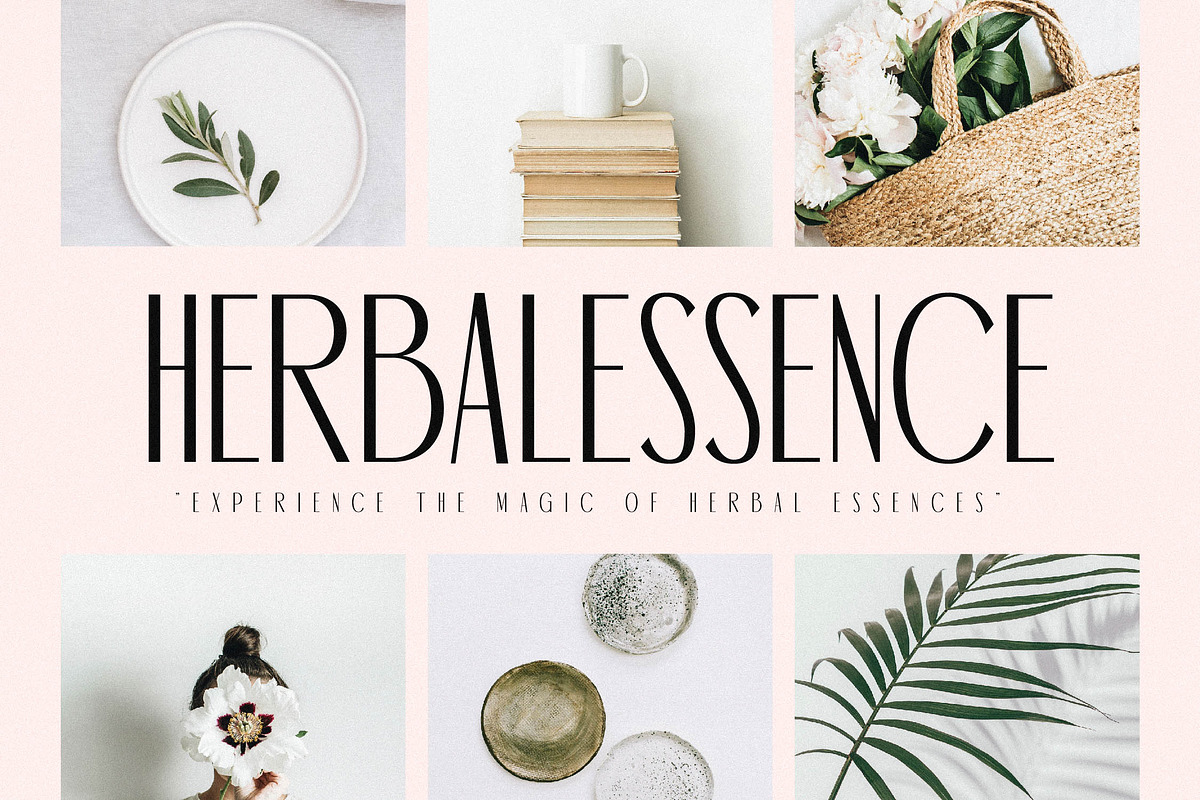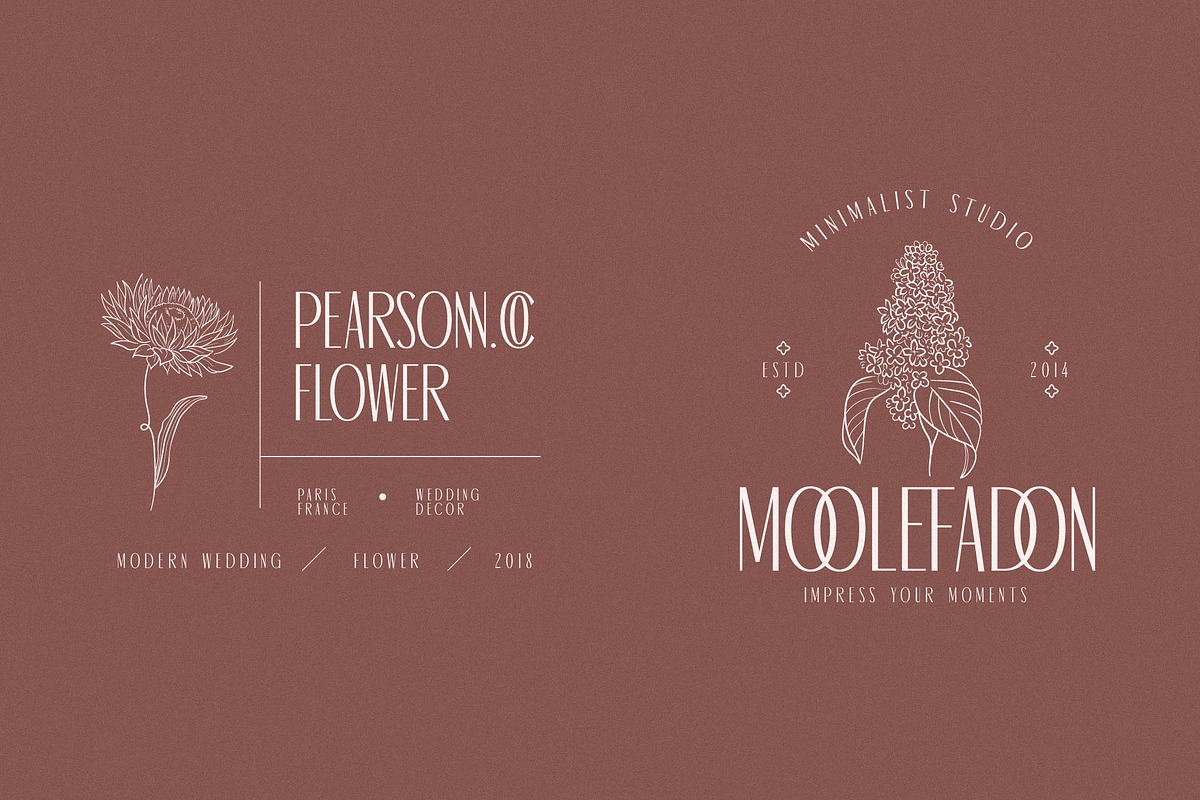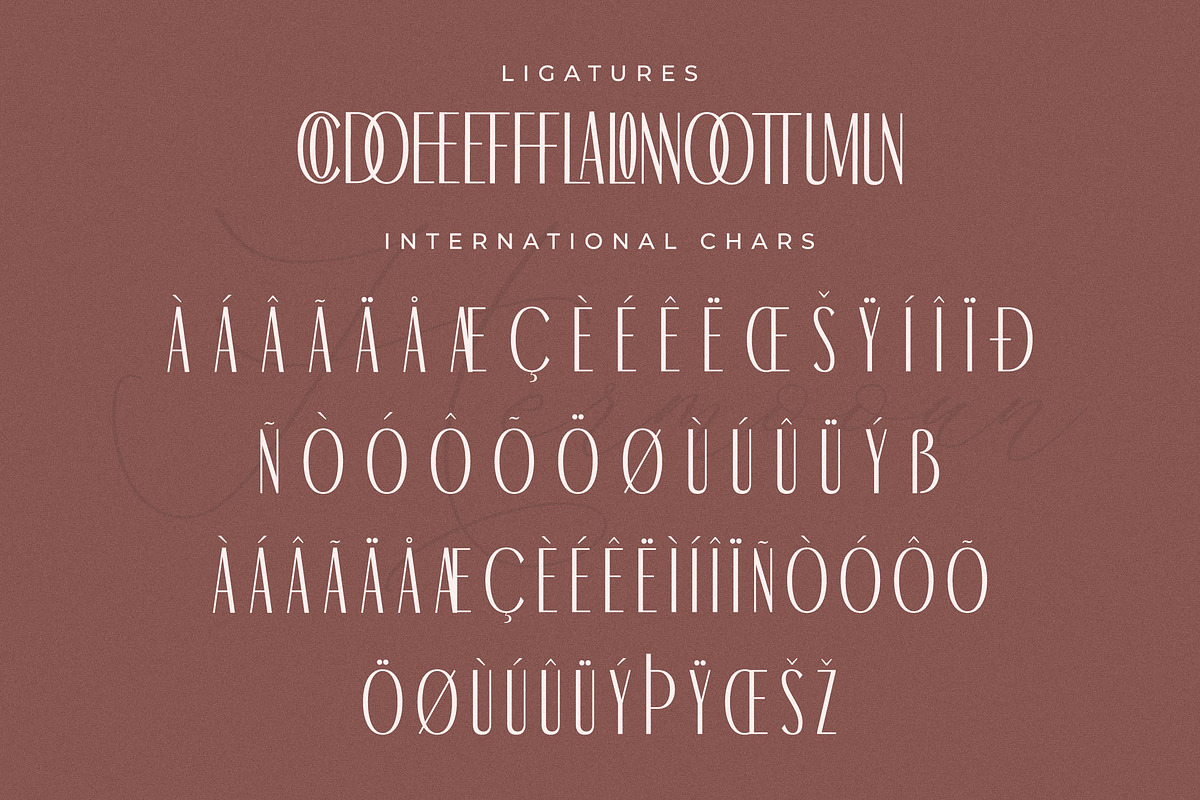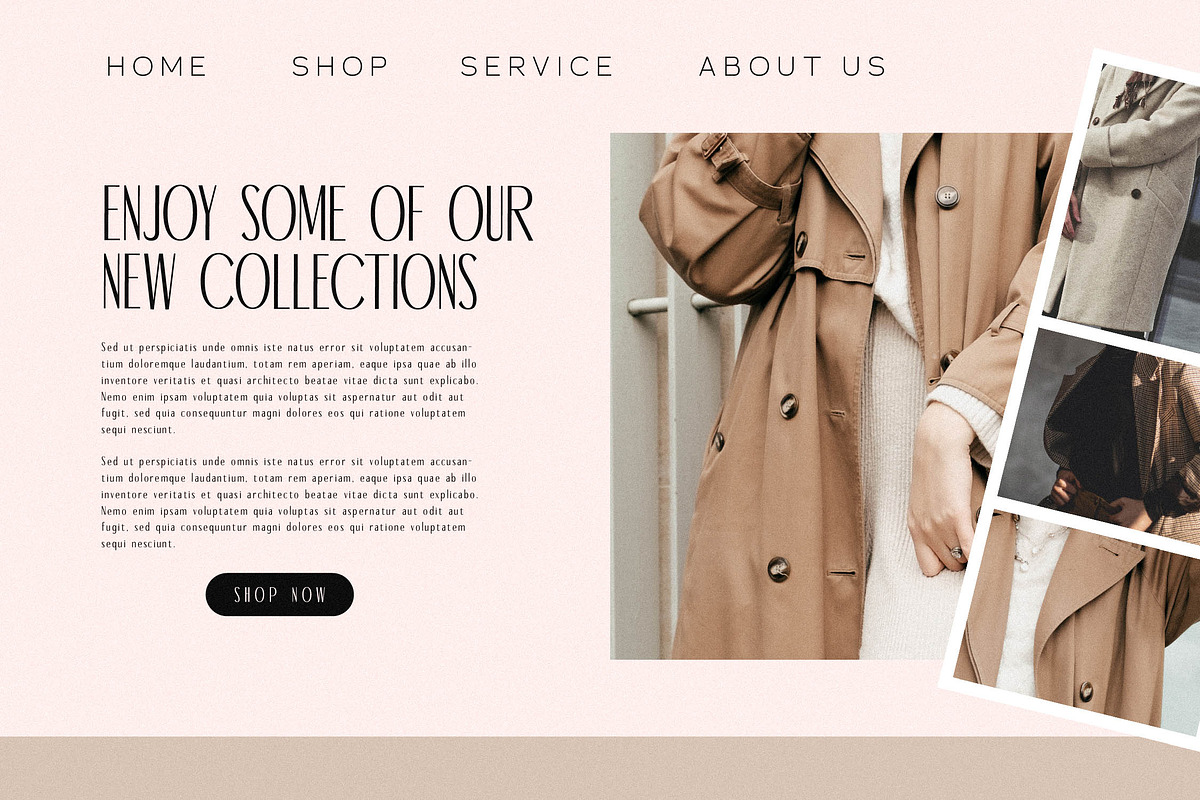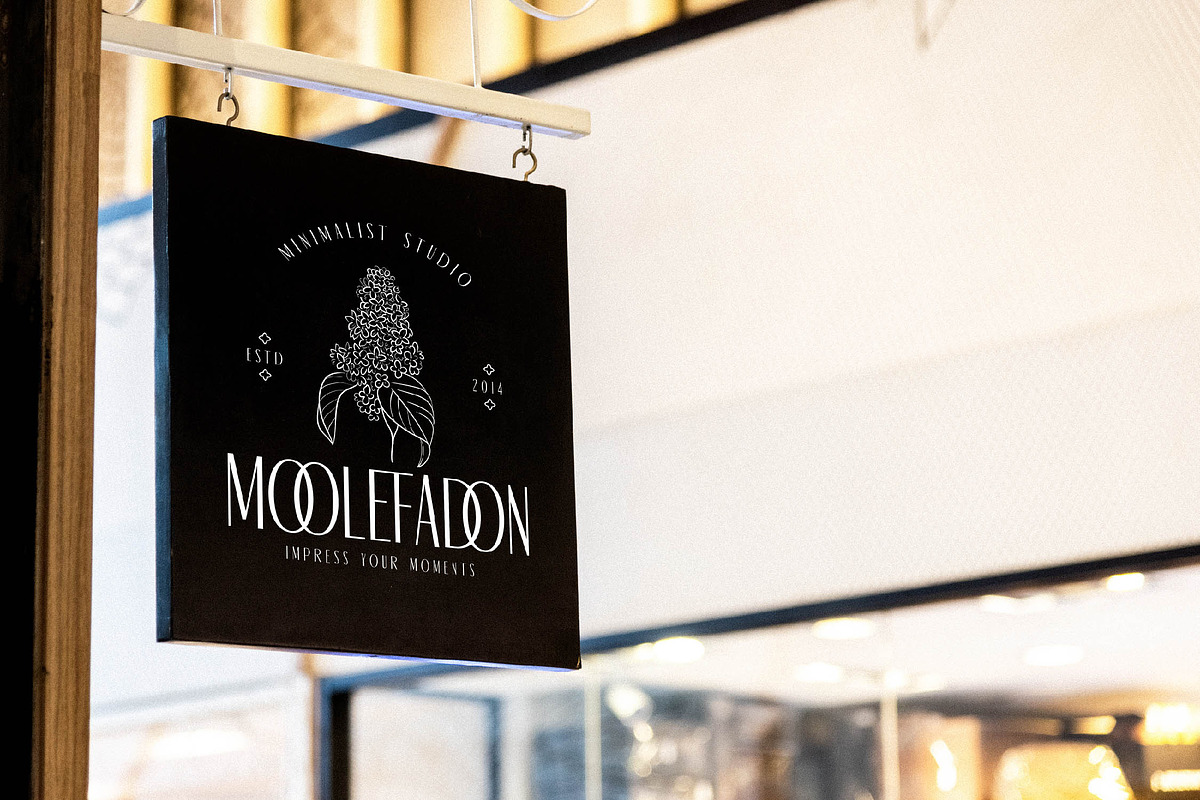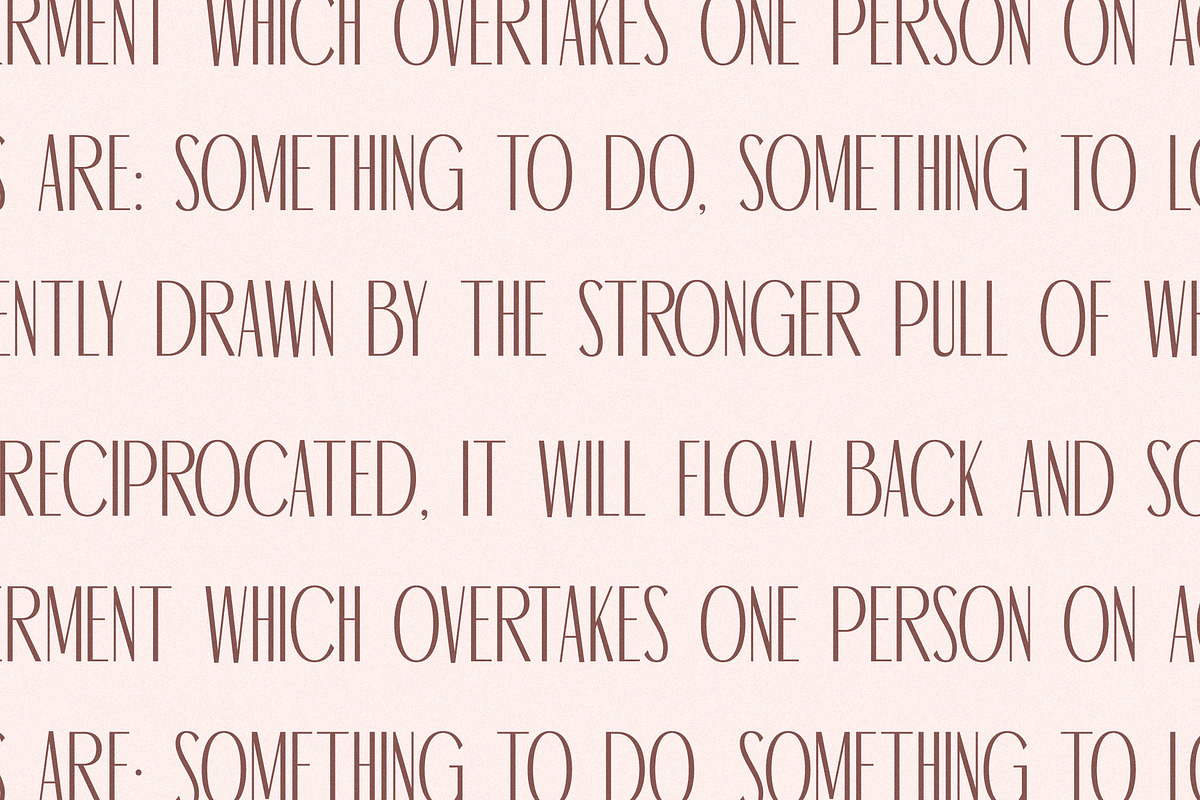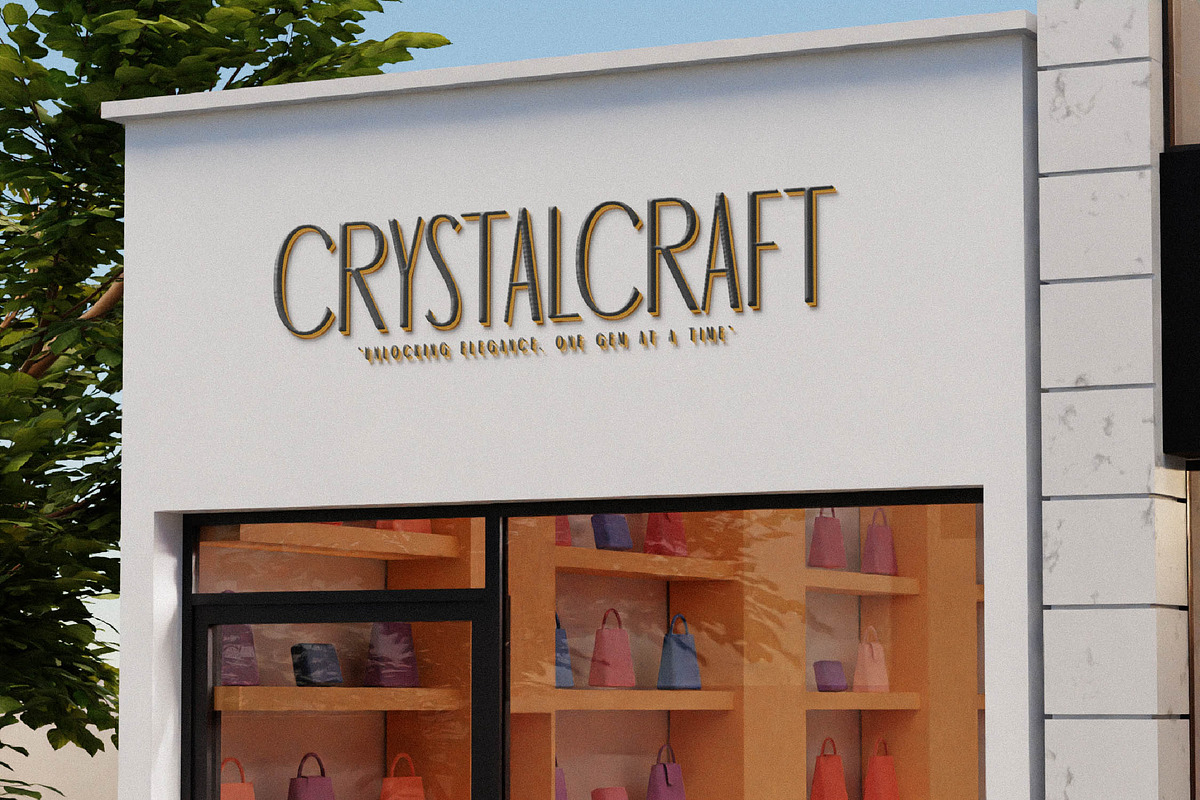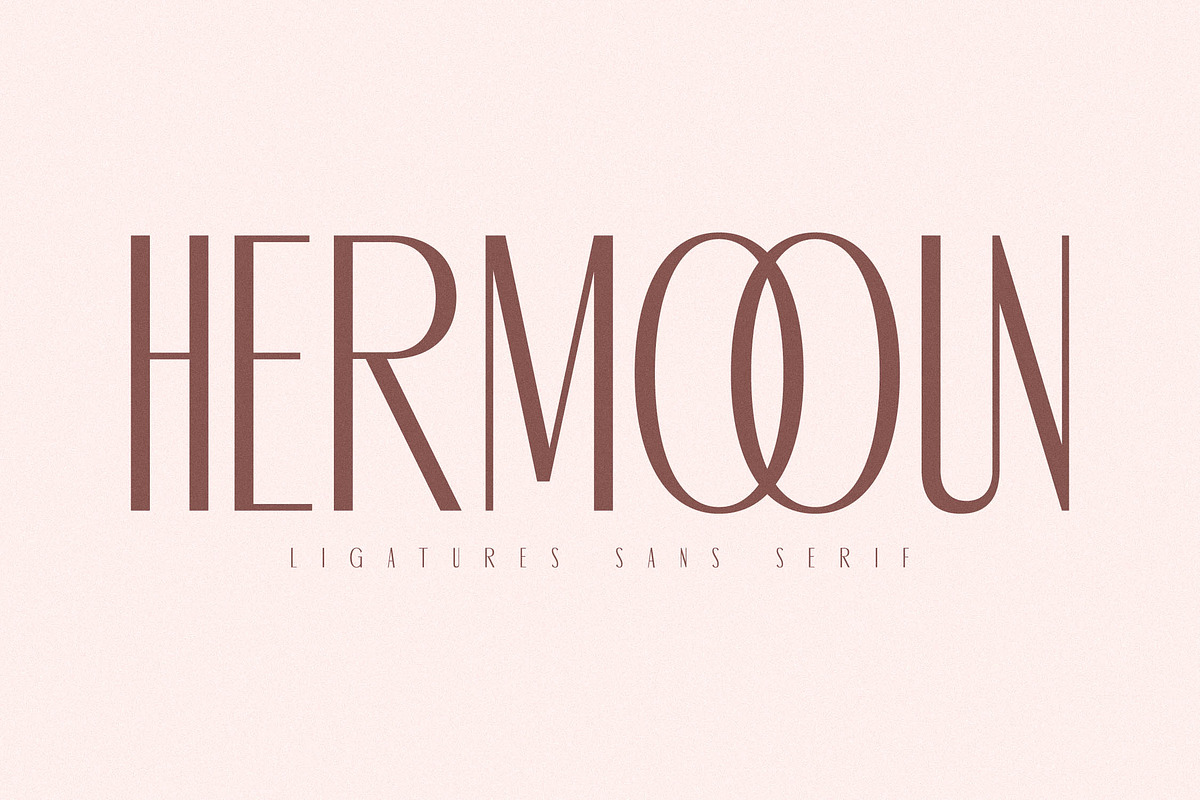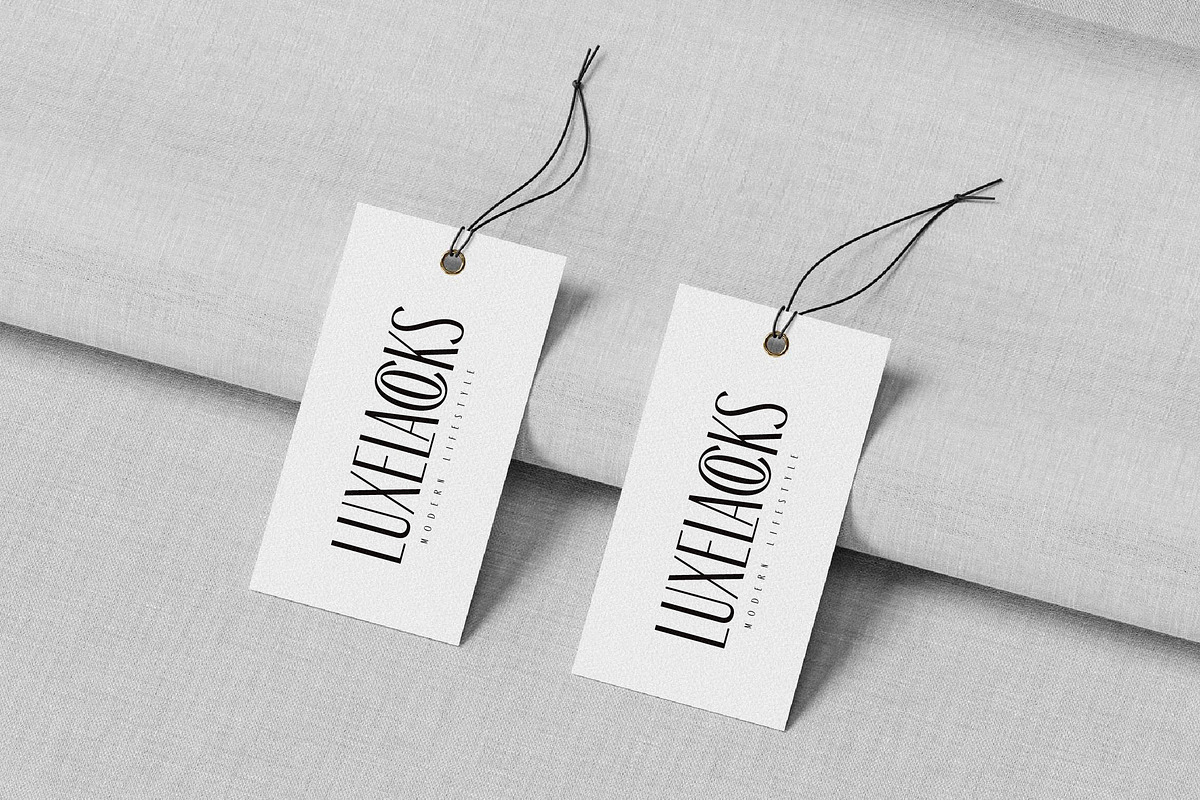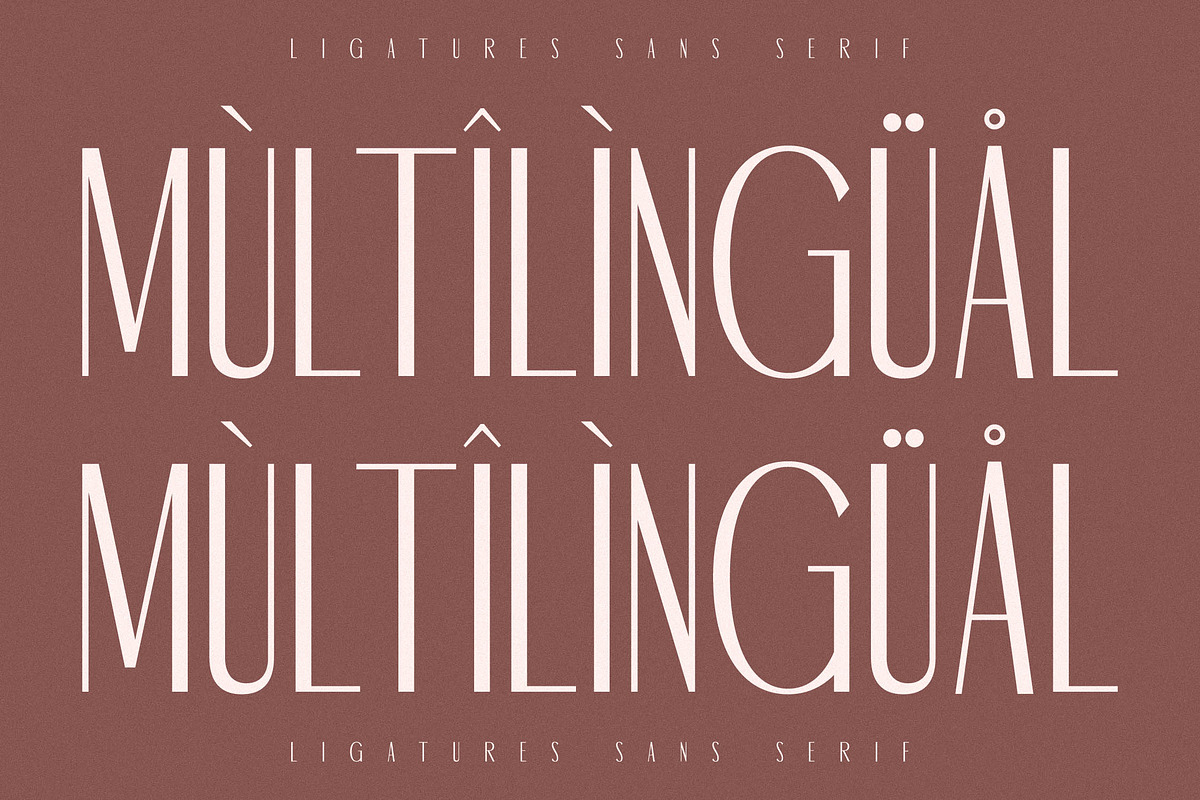
Hermooun Ligatures Sans Serif Font
Proudly present Hermooun Typeface , created by Storytype, A serif modern and classic typeface that has own unique style & modern look. This typeface is perfect for an elegant & luxury logo, book or movie title design, fashion brand, magazine, clothes, lettering, quotes, and so much more.